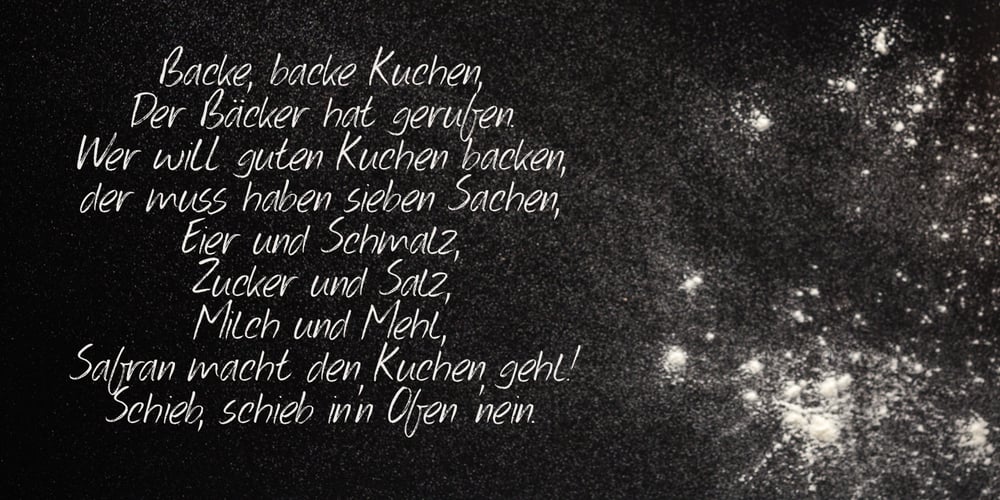
Konditorei Font Family was designed by David Kerkhoff and published by Hanoded. Konditorei contains 2 styles and family package options. A Konditorei is a German Confectionery Shop. A good Konditorei offers a wide variety of pastries and often also serves as a café. This handmade script font is like the wares in a confectionery shop: full of calories, but sweet and delicious. Use it for your food blogs, your magazines and product packaging. Comes with heaps of diacritics and ligatures for double letters.